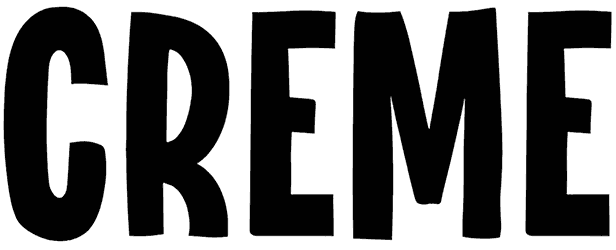
Creme Font
If designing high-end graphic content such as book covers, illustrations, product packaging, web pages, and labels is taking a long time, we offer using a cartoon font such as Creme as a solution to save your precious time and energy.
Characters of this fancy font are a little bit crocked, thus it can instill a sense of dynamic, playfulness, childishness, and jauntiness to your artwork and grab the attention of the audience immediately.